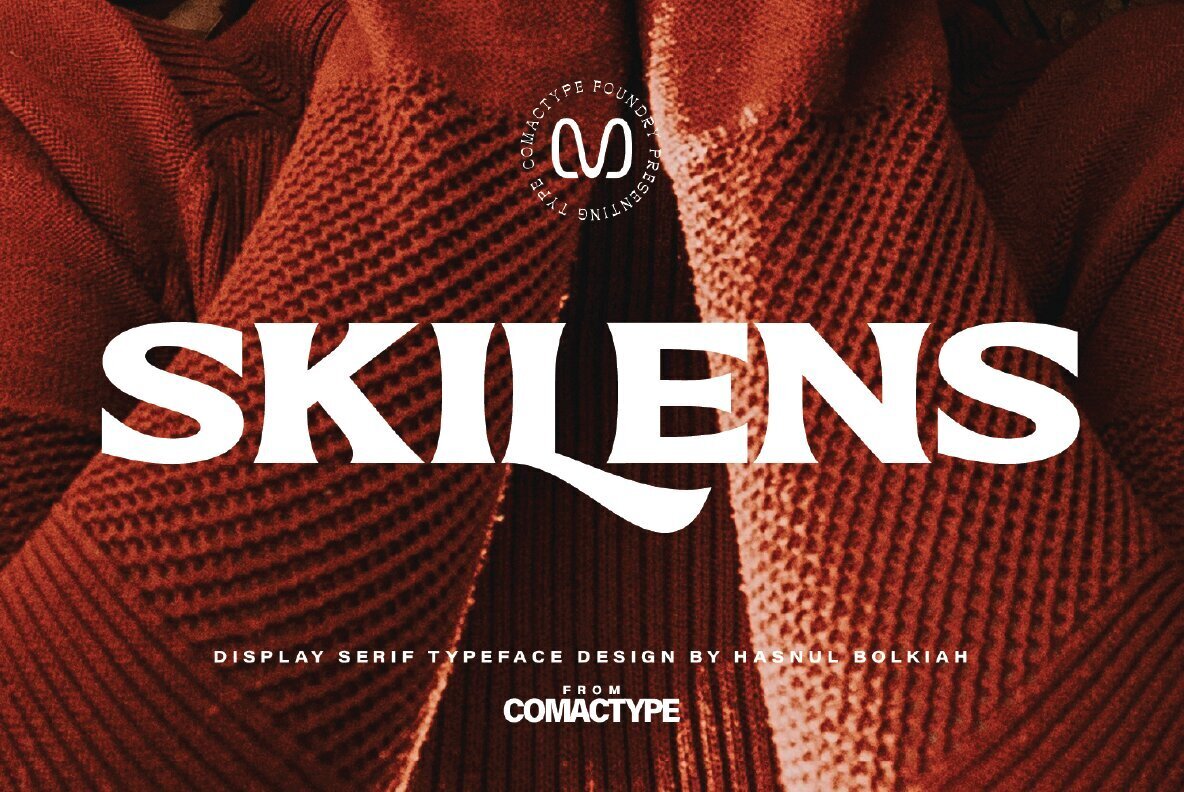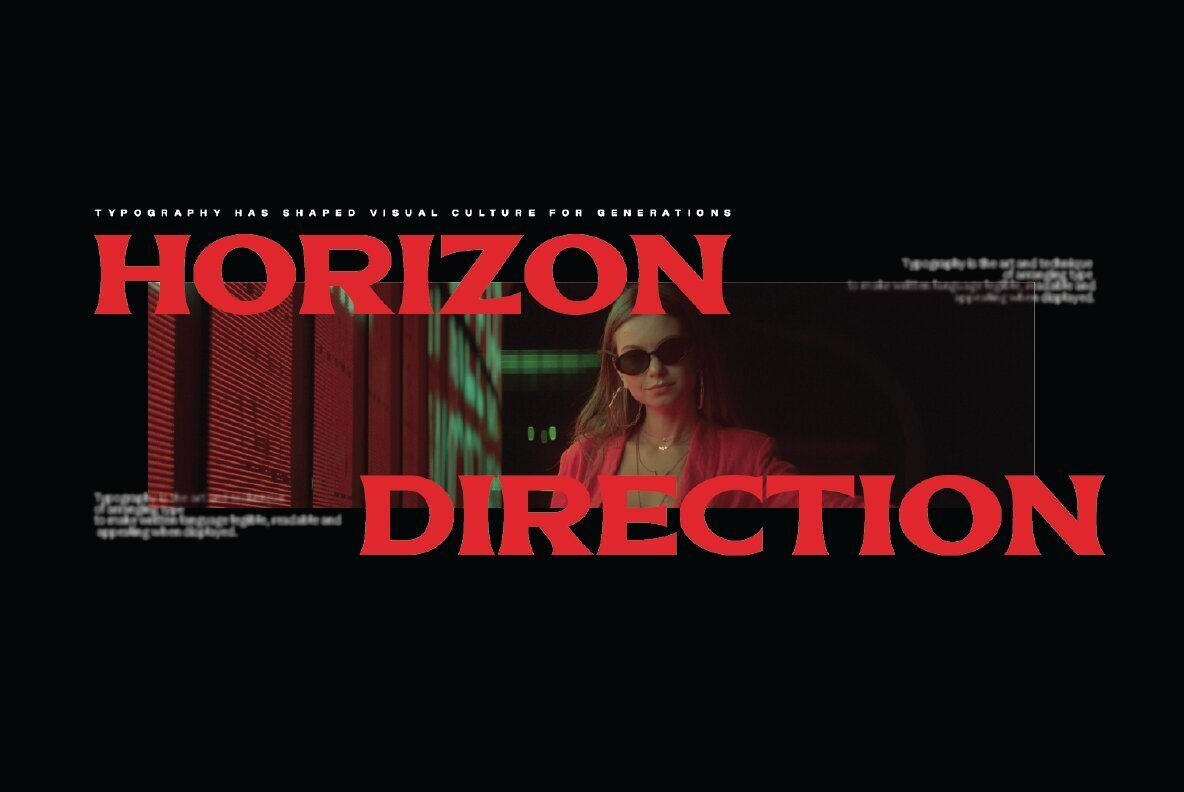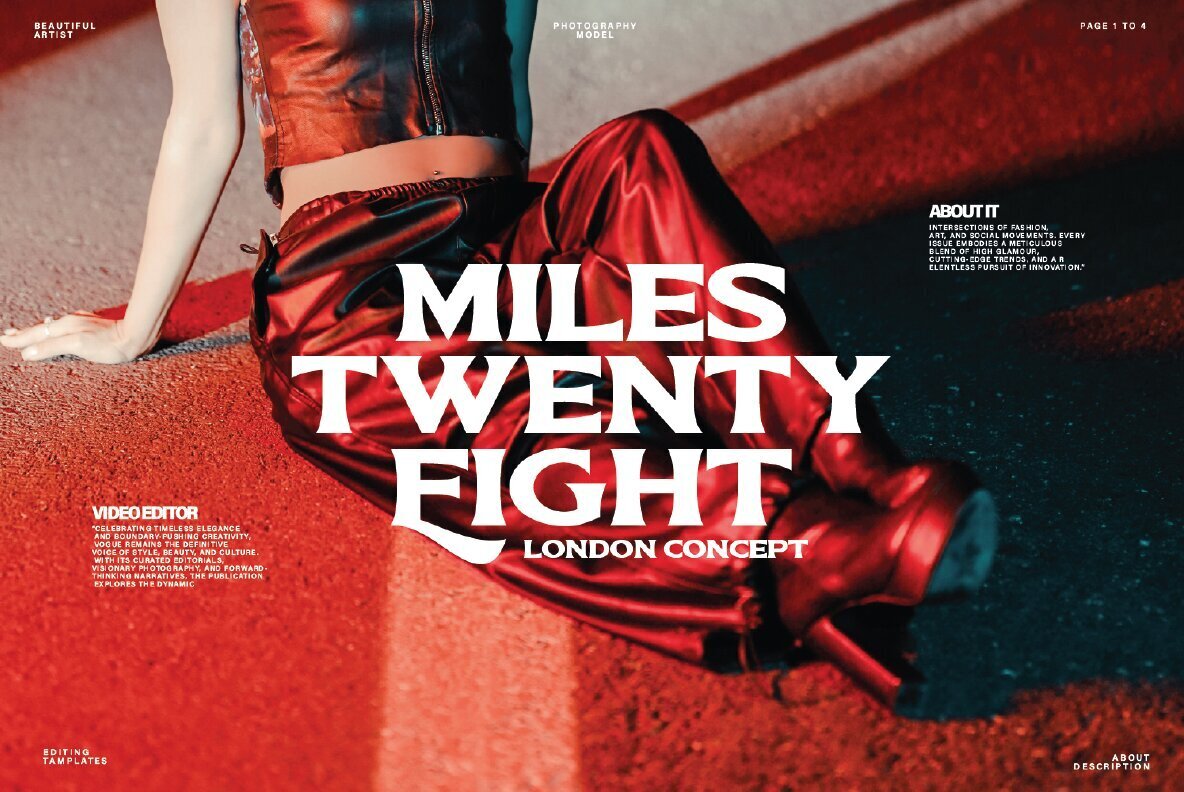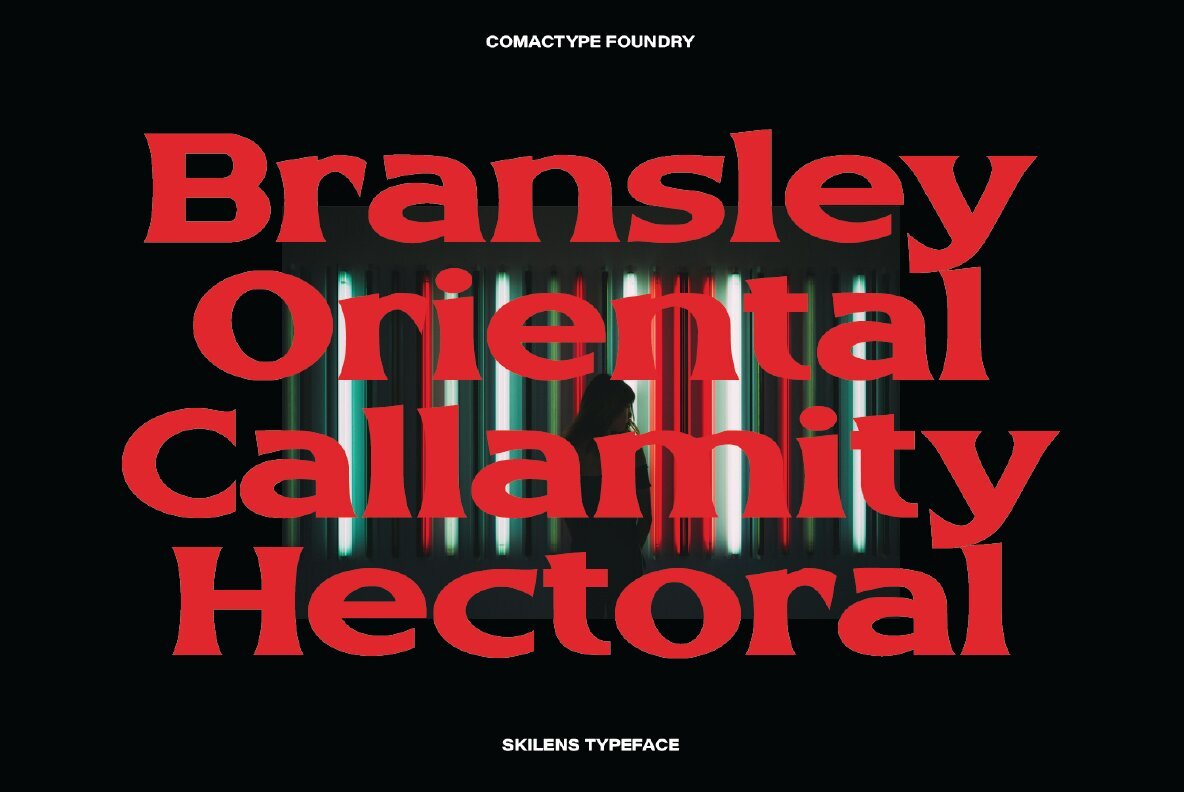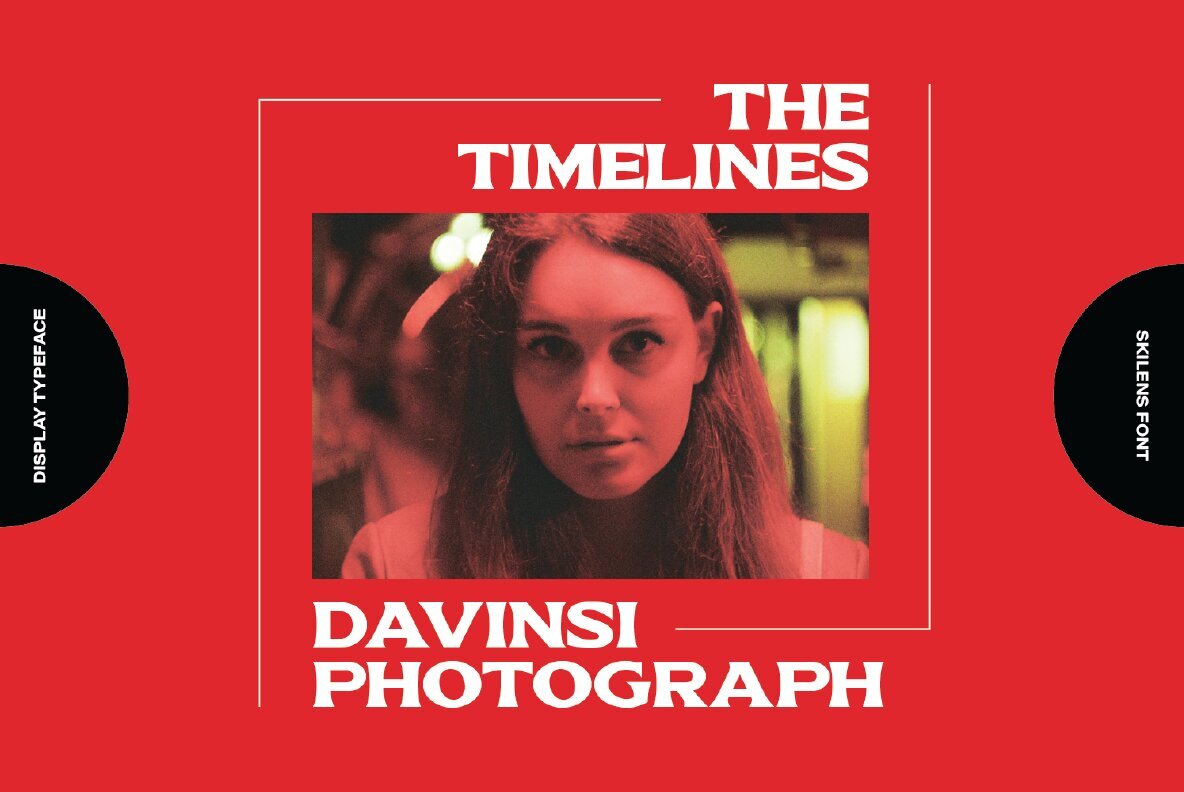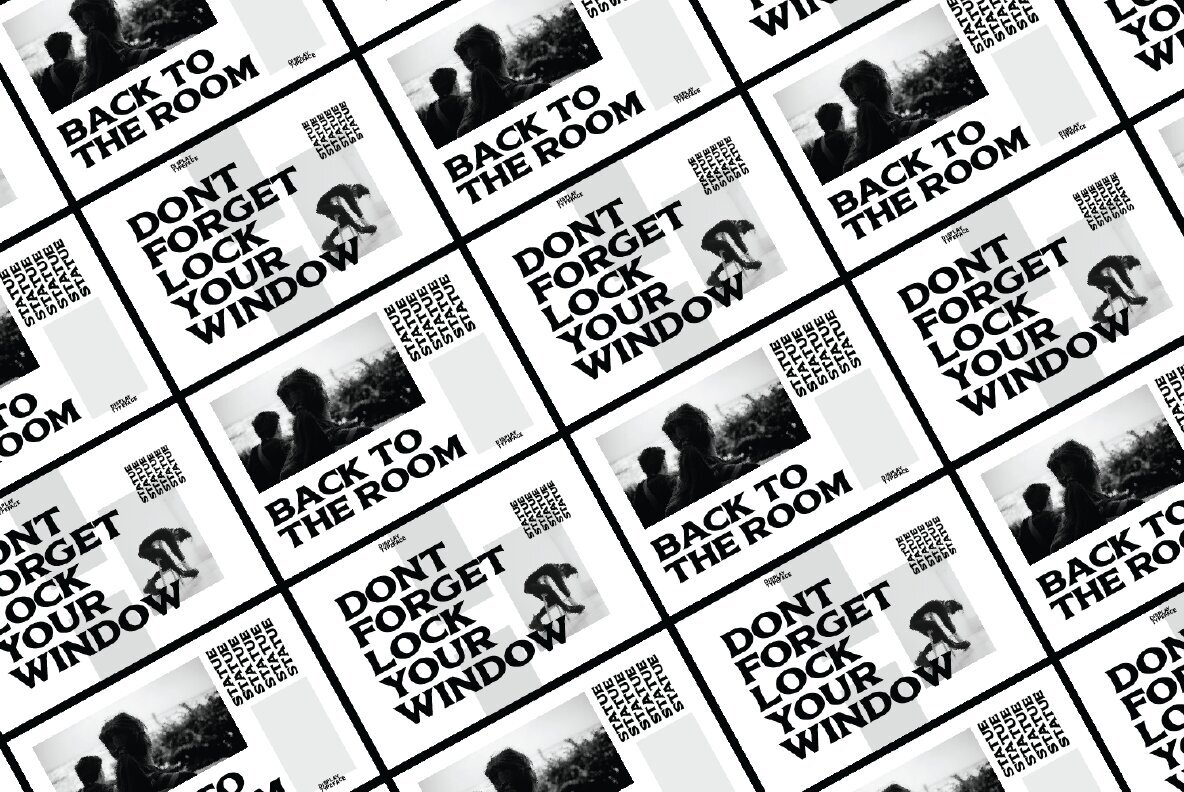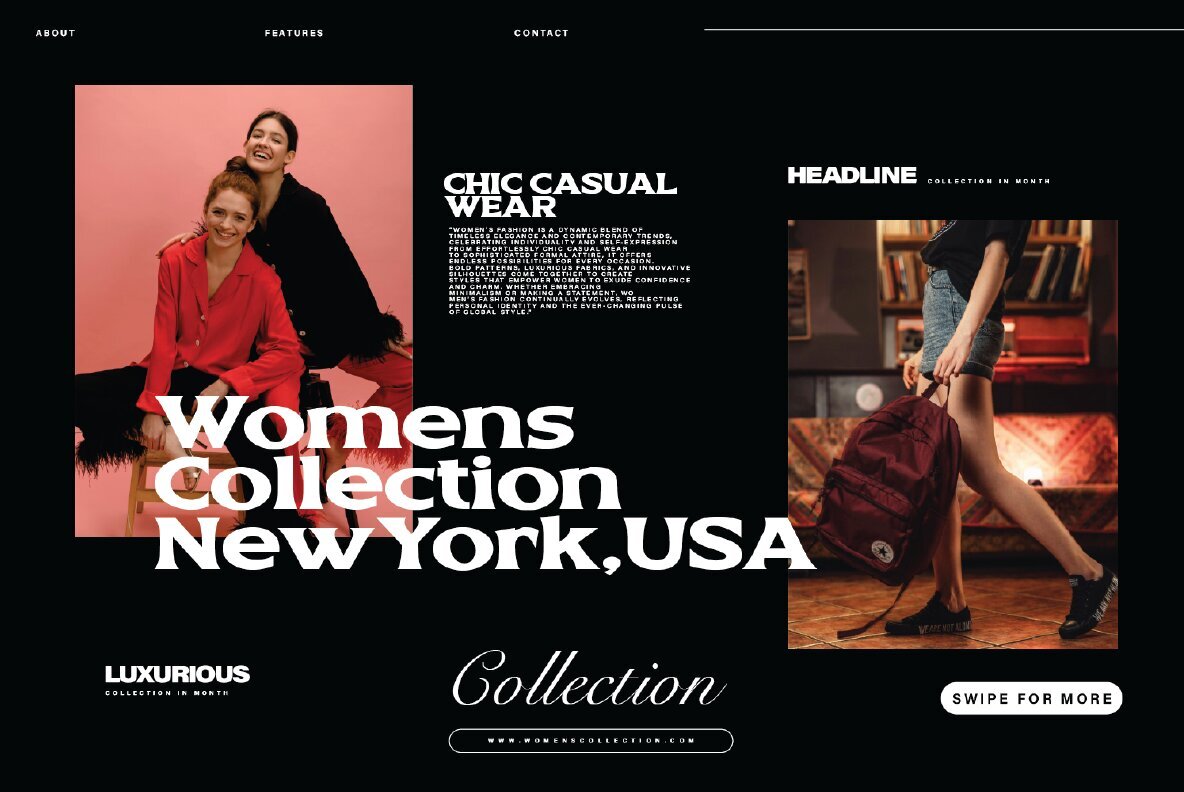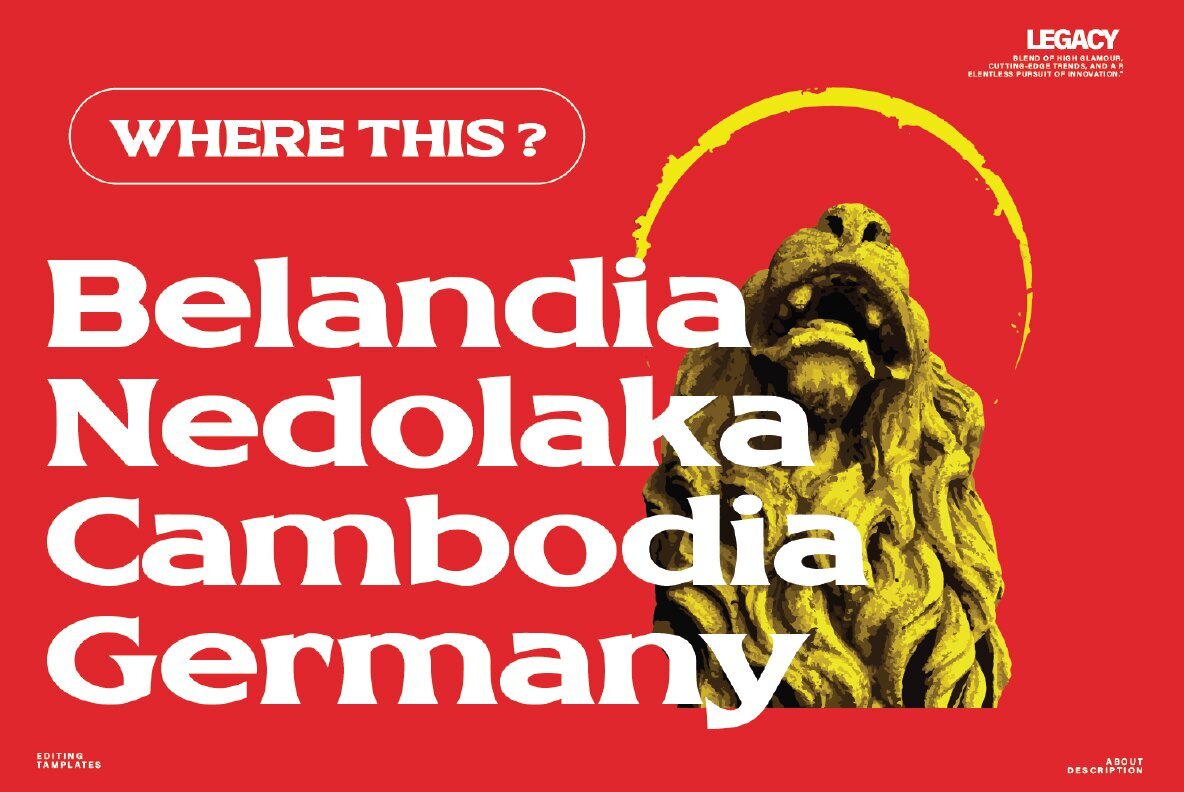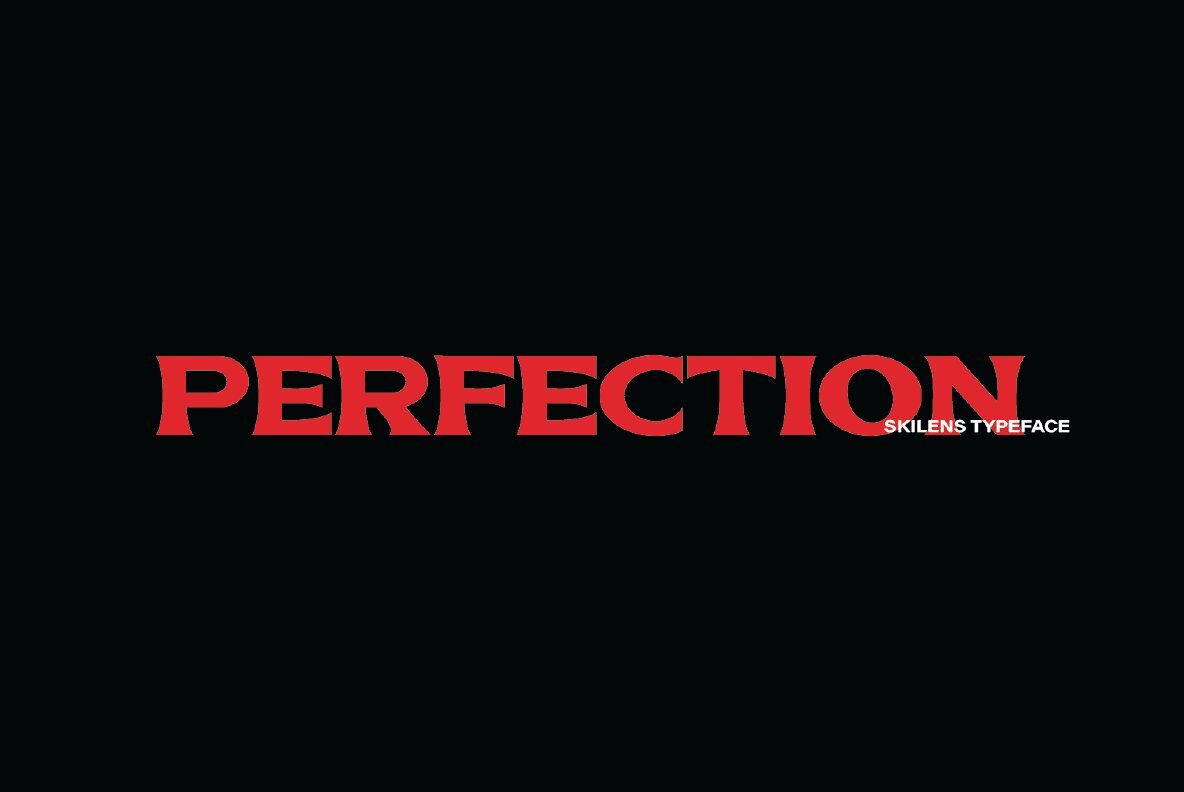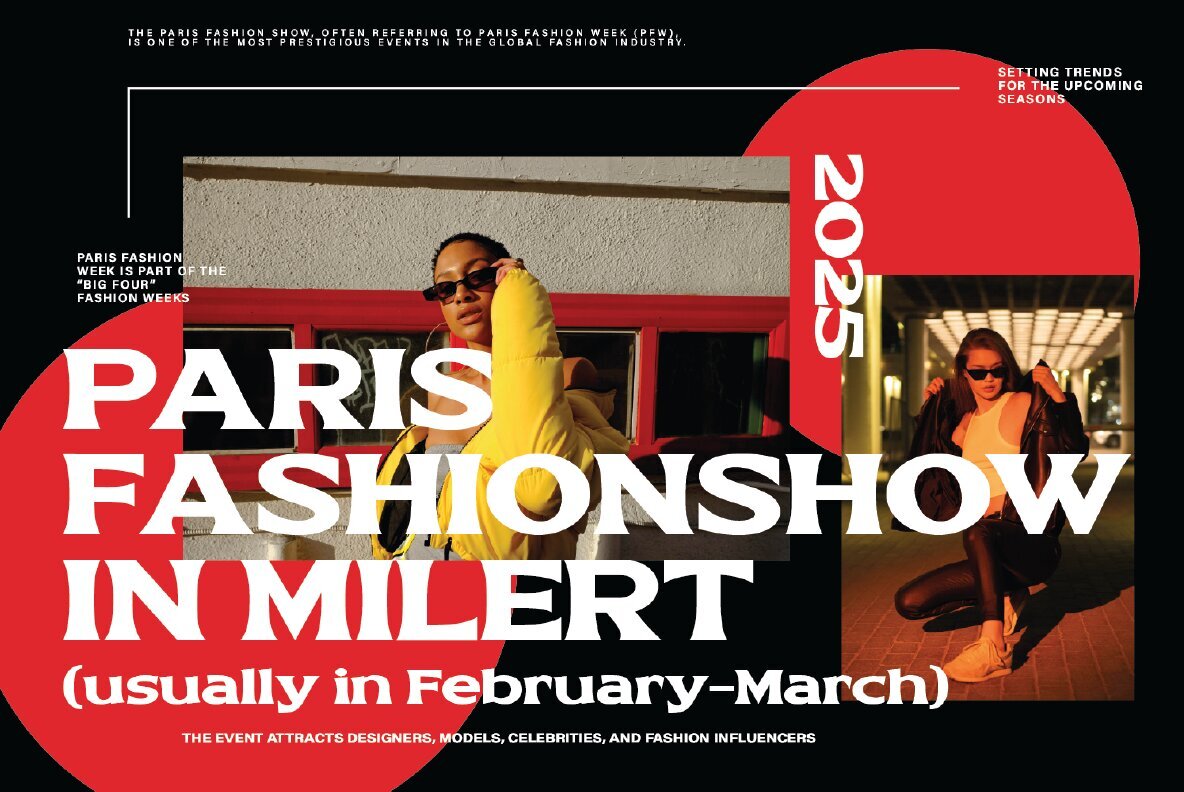
Skilens Font
SKILENS Regular
Enhance your visual designs with Skilens, a display serif typeface that masterfully combines timeless elegance with contemporary sophistication. Its bold letterforms speak to a sense of luxury and exclusivity, presenting a perfect choice for designers aiming to leave a lasting impression. The typeface comes equipped with a range of distinctive alternates, offering designers the flexibility to create unique branding, editorials, logos, and eye-catching posters. Skilens ensures that every detail is both purposeful and striking.Skilens: Bold Elegance in Display Serif